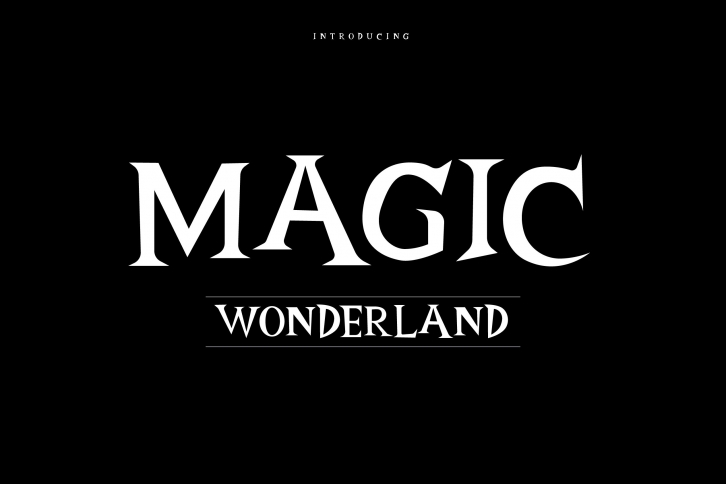
Magic Wonderland is a trendy and unique font with an authentic style. It was designed by Lahansubur and it's a great choice for creative people who need such a font. It was released on August 10, 2020 and the file size is 14.1 MB. Magic Wonderland will add an organic vibe to any design idea!